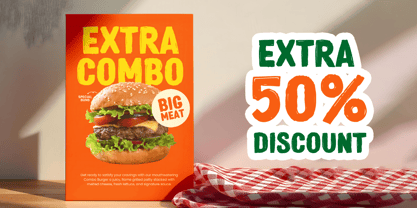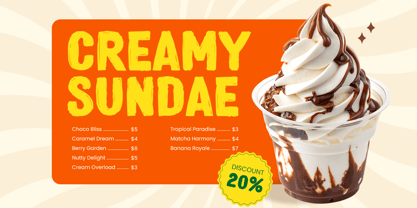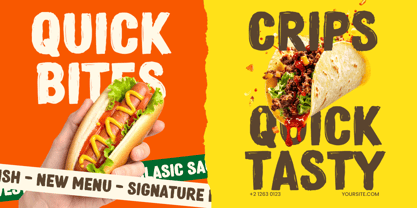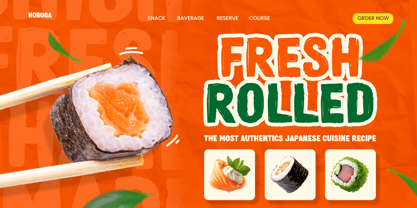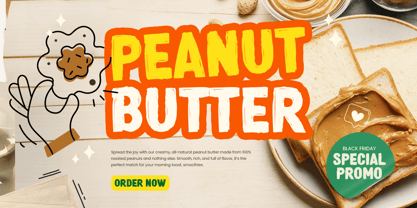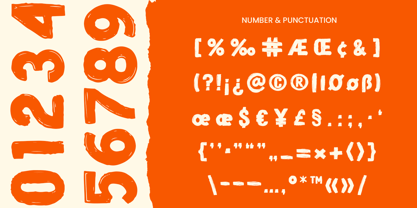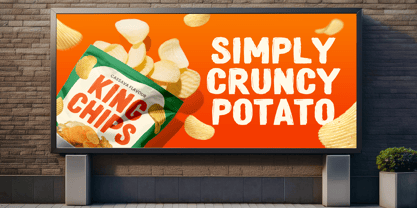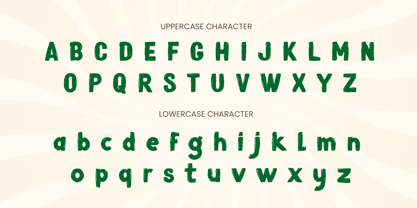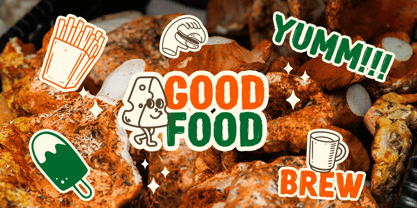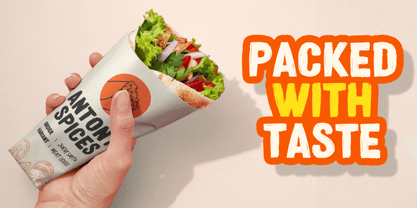
YOUR SNACK is a display fat brush food font with juicy, hand-painted energy and thick strokes that feel appetizing, fun, and full of flavor. Its chunky brush texture brings a casual handcrafted vibe—perfect for designs that need instant attention and a friendly, delicious personality.
Designed for food-focused visuals, YOUR SNACK shines on packaging, snack labels, café menus, restaurant signage, food trucks, and promo posters. Use it for bold logos, playful headlines, social media content, product launches, and mouth-watering advertising where readability and character matter most.
Whether you’re building a modern street-food brand or a cozy bakery identity, YOUR SNACK delivers a confident, tasty look that stands out in both print and digital layouts.
YOUR SNACK – Display Fat Brush Features
Thick brush letterforms with bold, tasty presence
Perfect for food branding, snack packaging, and menu design
Strong readability for headlines, posters, and signage
Ideal for logos, labels, social media, and promotions
Includes uppercase, lowercase, numerals, and punctuation
OpenType features for creative flexibility
Works great for digital and print projects
Multilingual Support